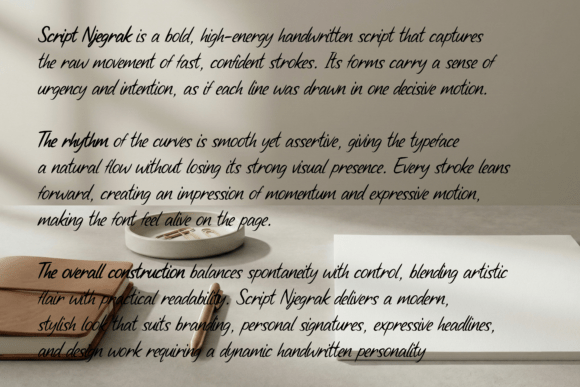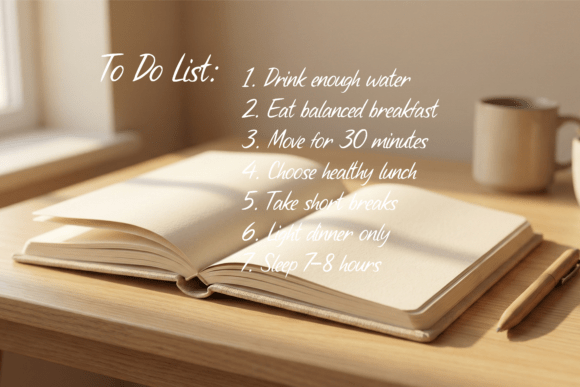
Introduction to Script Njegrak Font Font
Fonts play a crucial role in design, and the Script Njegrak Font font is a typeface that brings both character and versatility to any project. Whether you’re working on a branding project, a website, or a print design, the Script Njegrak Font font offers a unique style that can elevate your work.
Script Njegrak is a bold, high-energy handwritten script that captures the raw movement of fast, confident strokes.
Its forms carry a sense of urgency and intention, as if each line was drawn in one decisive motion The rhythm of the curves is smooth yet assertive, giving the typeface a natural flow without losing its strong visual presence.
The Script Njegrak Font font is more than just a typeface – it’s a design tool that helps you communicate your message with style and clarity. Its unique character set and versatile design make it suitable for a wide range of applications, from elegant invitations to bold headlines.
With its carefully crafted letterforms and balanced proportions, the Script Njegrak Font font ensures readability and visual appeal across all mediums.
The Script Njegrak Font font stands out with its unique design, exceptional readability, and versatility across various design applications.